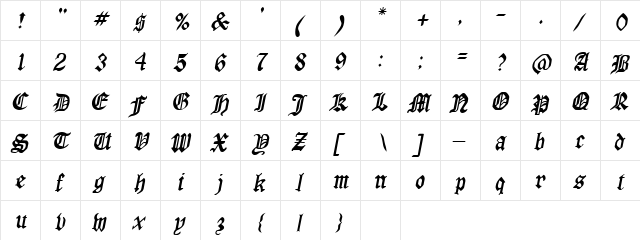
Parker Oblique
Design Context for Parker Typeface
Parker is a composed and adaptable typeface that performs quietly and consistently across a wide range of design contexts. Its italic angle brings a sense of urgency and motion to the letterforms.
Pro Tip: Use Parker for emphasis, pull quotes, and subheadings where its slanted energy can add rhythm to the layout.